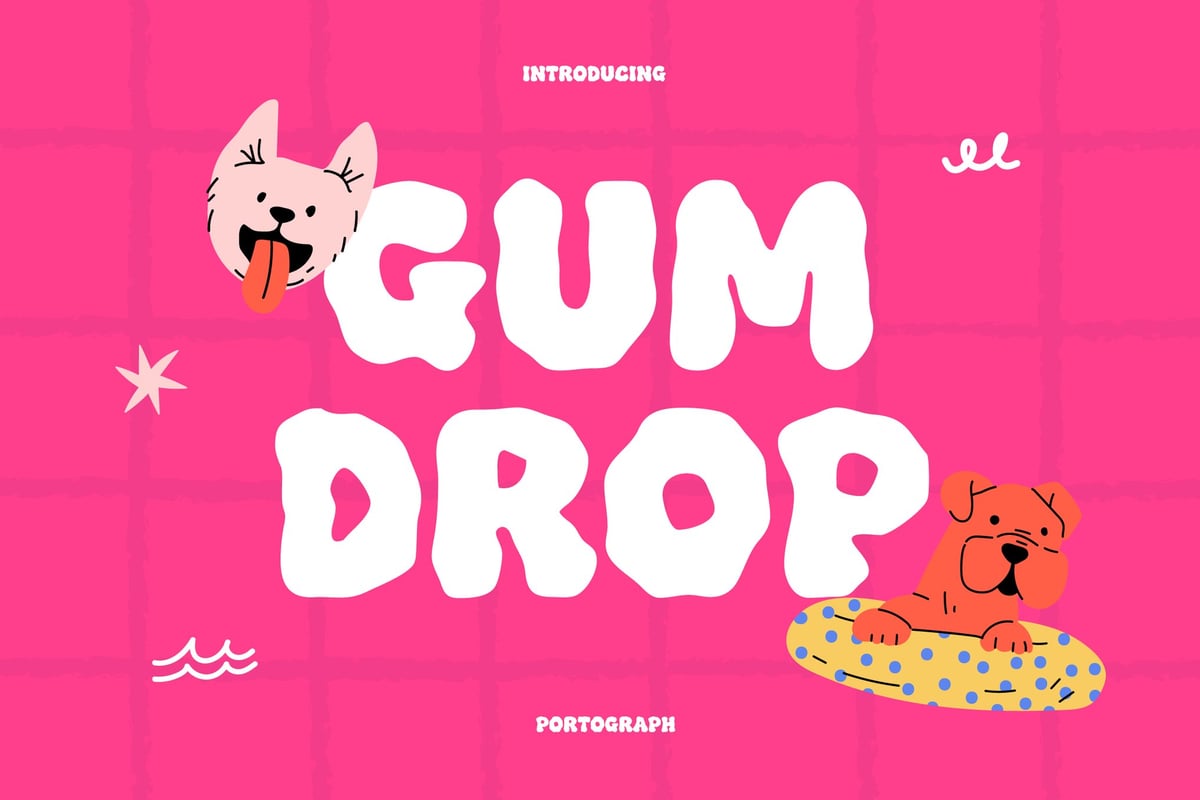
Gumdrop – Playful Display Font
Bring instant joy and playful energy to your designs with Gumdrop's adorably rounded letterforms and bubbly personality. Gumdrop is an irresistibly cute display font crafted to infuse your projects with fun, creativity, and pure happiness. With its soft rounded shapes, bold strokes, and cheerfully playful letterforms, this typeface radiates a warm, friendly personality that captures attention and spreads smiles. This delightful font shines in kids' designs and playful branding projects. Gumdrop ...